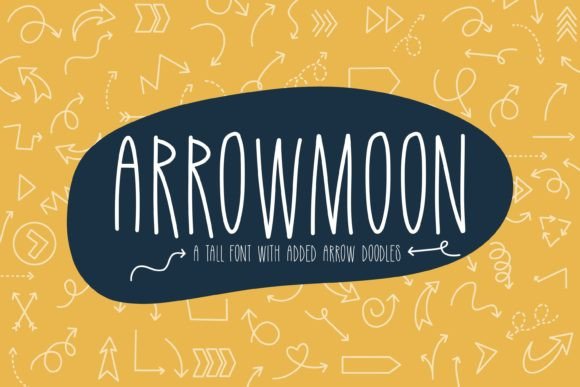
Introducing Arrowmoon Font, the ultimate choice for all your design needs! Created by the talented team at Kitaleigh LLC, this stunning hand-lettered font is here to elevate your creative projects to new heights. Whether you're looking to make captivating logos, eye-catching titles, memorable cards, or striking signage, Arrowmoon is the answer you've been searching for.
What sets Arrowmoon apart from other fonts is its unique incorporation of arrow doodles. These trendy details not only add a touch of elegance but also create a sense of movement and excitement in your designs. With Arrowmoon, your projects will stand out from the crowd, leaving a lasting impression on anyone who lays eyes on them.
But what makes Arrowmoon the best font for all caps? Its carefully crafted letters are flawlessly designed to shine in uppercase form, making it ideal for powerful headlines and attention-grabbing text. Whether you're aiming for a bold and assertive look or a sleek and modern feel, Arrowmoon has you covered.
Imagine the impact your brand can make with a font that exudes confidence and style. Arrowmoon's versatility allows it to adapt to any industry or design theme, ensuring that your message is delivered with utmost clarity and impact. With this font at your fingertips, your creative possibilities are limitless.